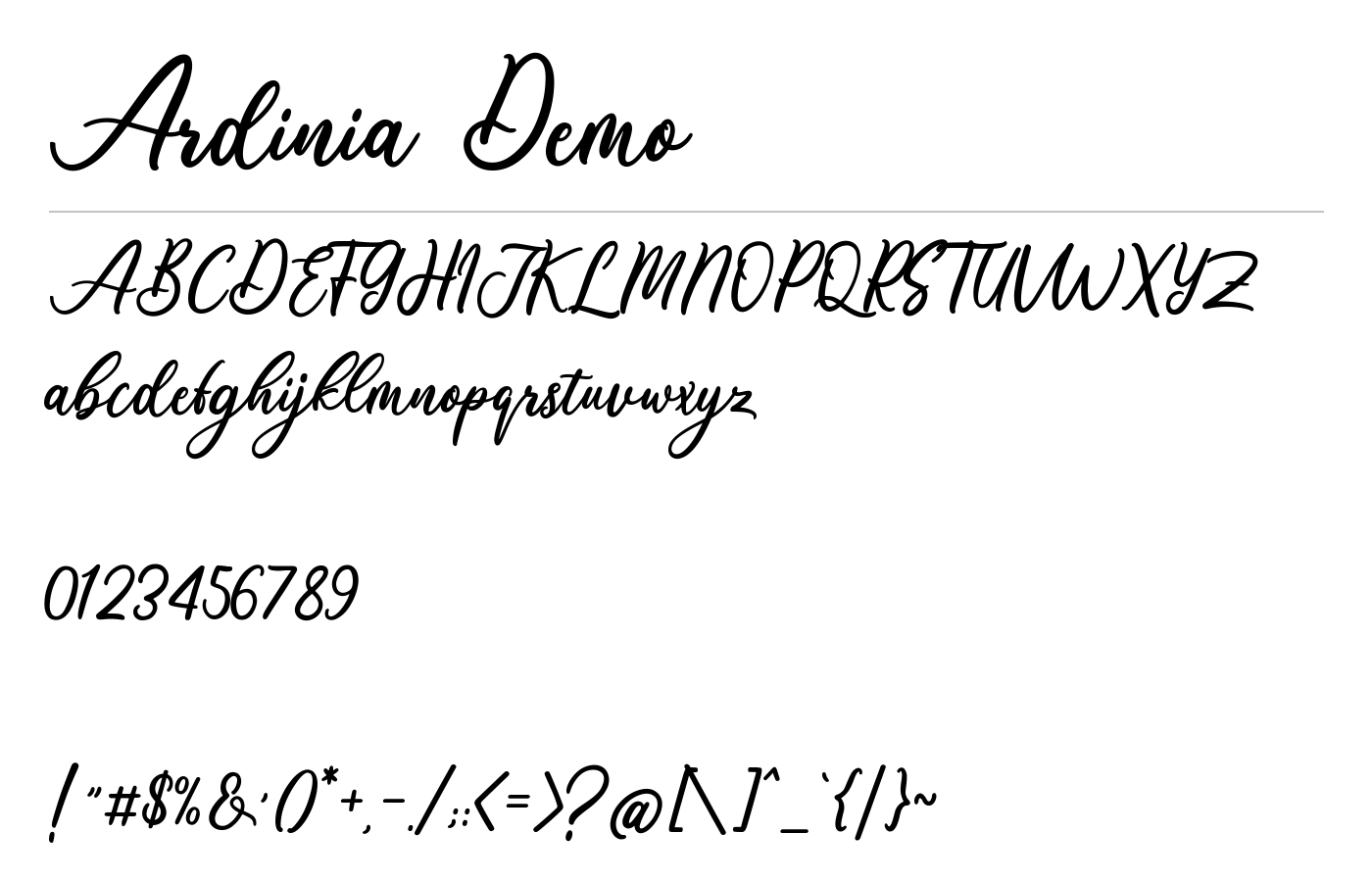
Ardinia Demo is an elegant script font featuring smooth, flowing strokes that resemble natural handwriting with a modern touch. Its medium weight and moderate contrast create a graceful and readable style ideal for invitations, branding, and stylish headlines. This font brings a sophisticated yet approachable personality that suits fashion, beauty, and lifestyle projects perfectly.
Ardinia Demo Font
About Ardinia Demo Font